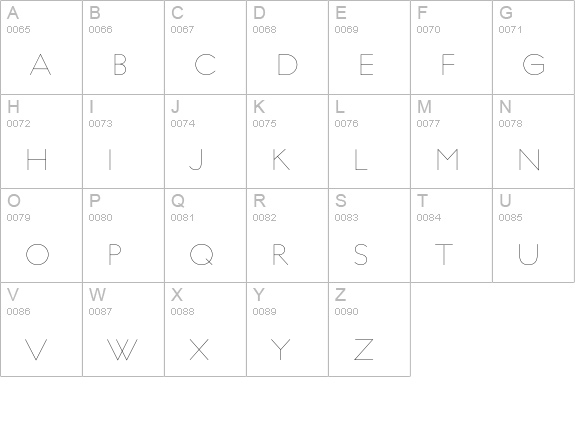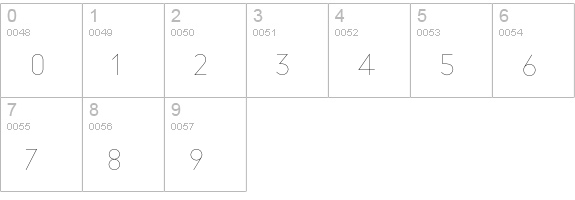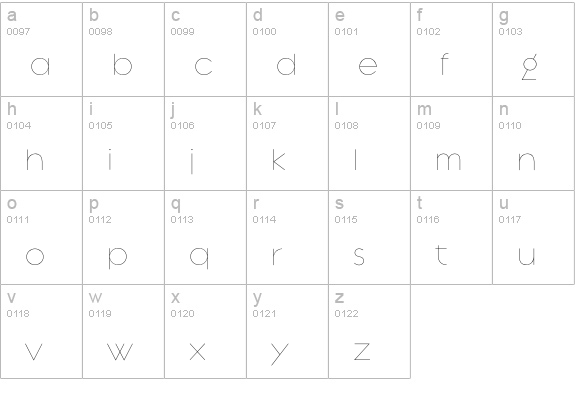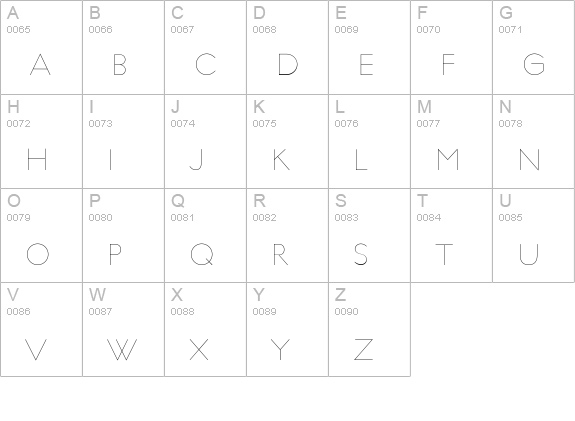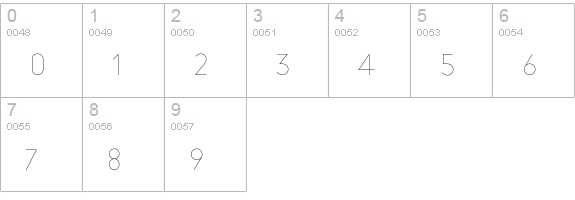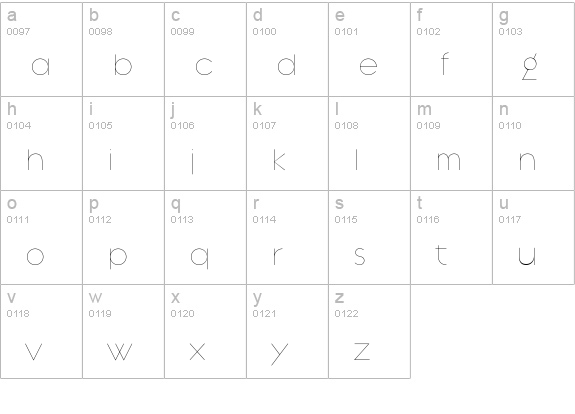
Regulator-Thin Font Details
Regulator-Thin is a delicate, low-contrast variant in the Regulator typeface family \xE2\x80\x94 well suited to fashion editorial, minimal branding, and high-contrast display.
Regulator-Thin font is sleek, elegant, and modern. It is the perfect choice for those who seek a minimalist and refined look in their designs. With its thin strokes and balanced proportions, this font exudes sophistication and grace. Whether you are designing a logo, creating a website, or crafting a branding project, Regulator-Thin font will effortlessly elevate your work to new heights. Its clean and minimalist appearance allows it to seamlessly blend into any design, while still making a bold statement. Not only does Regulator-Thin font offer a visually stunning aesthetic, but it also provides excellent legibility, making it suitable for a wide range of applications. From headlines and titles to body text and captions, this font will ensure that your message is clear and easy to read. What's even better is that Regulator-Thin font is freely available to download at FontsMarket.com. This means that you can enjoy the beauty and versatility of this font without breaking the bank. Whether you are a professional designer or a hobbyist, this free font is a valuable addition to your creative arsenal. So, why wait? Download Regulator-Thin font today and unleash your creativity with its timeless style and versatility. Whether you are designing for print or digital media, this font is sure to impress with its clean lines and refined elegance. Don't miss out on this opportunity to enhance your designs with a free font that is as stunning as it is versatile.